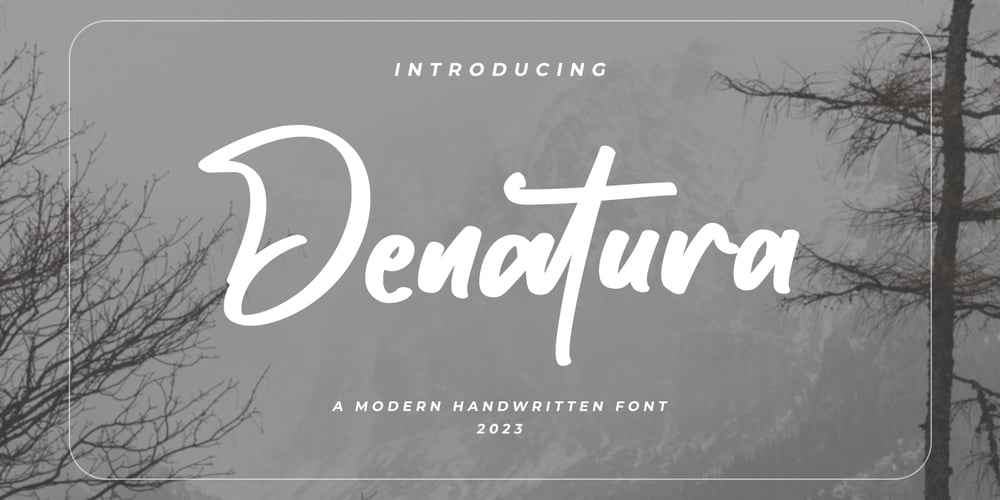
Denatura Font Family was designed by Hayinah and published by Rockboys Studio. Denatura contains 1 styles and family package options. Denatura is a handwritten script font with a cute, girly style. Create social media posts, greeting cards, tshirts, mugs, stickers, quotes, totes or any design project with an imperfect, unfinished style.